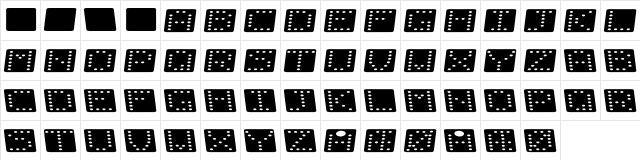
Domino flad kursiv Regular
Design Context for Domino flad kursiv Typeface
Domino flad kursiv is a composed and adaptable typeface that performs quietly and consistently across a wide range of design contexts. The slanted form adds forward momentum and visual energy.